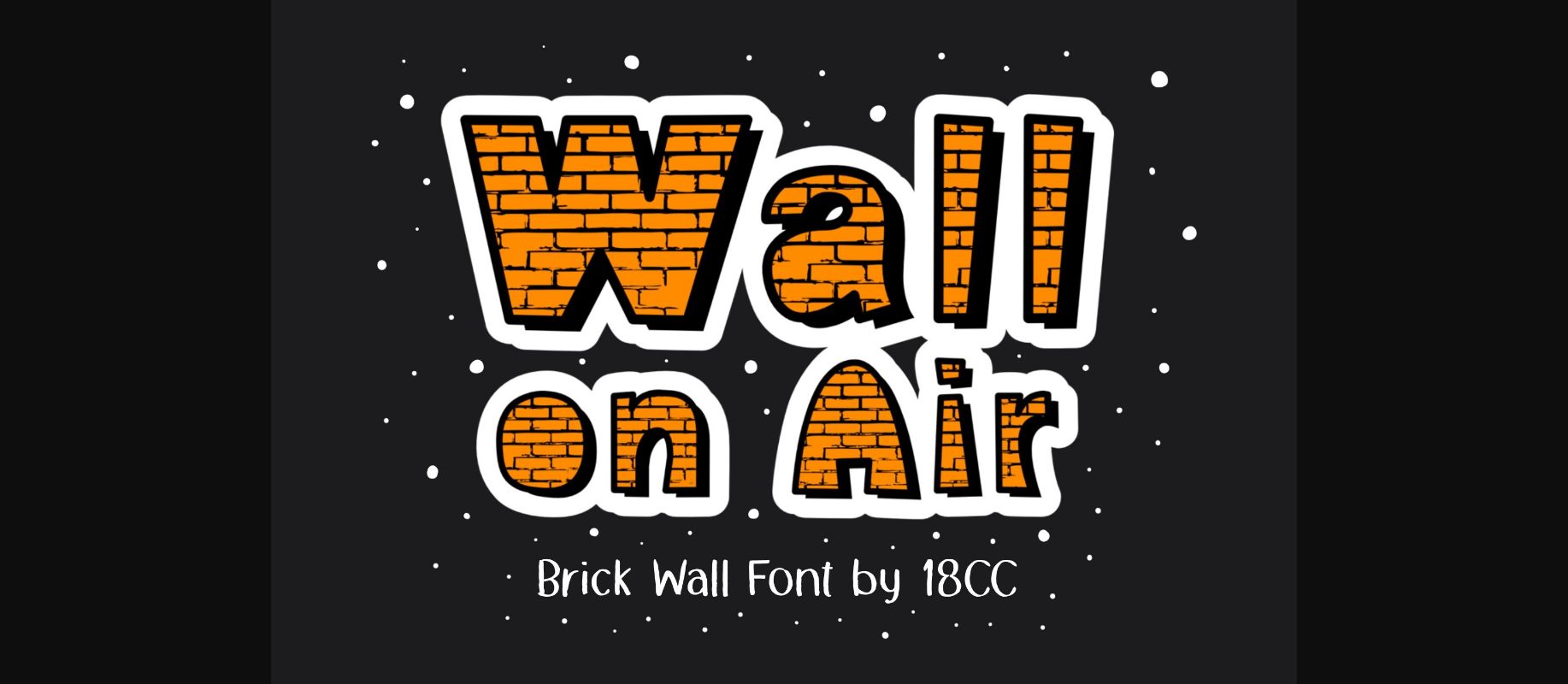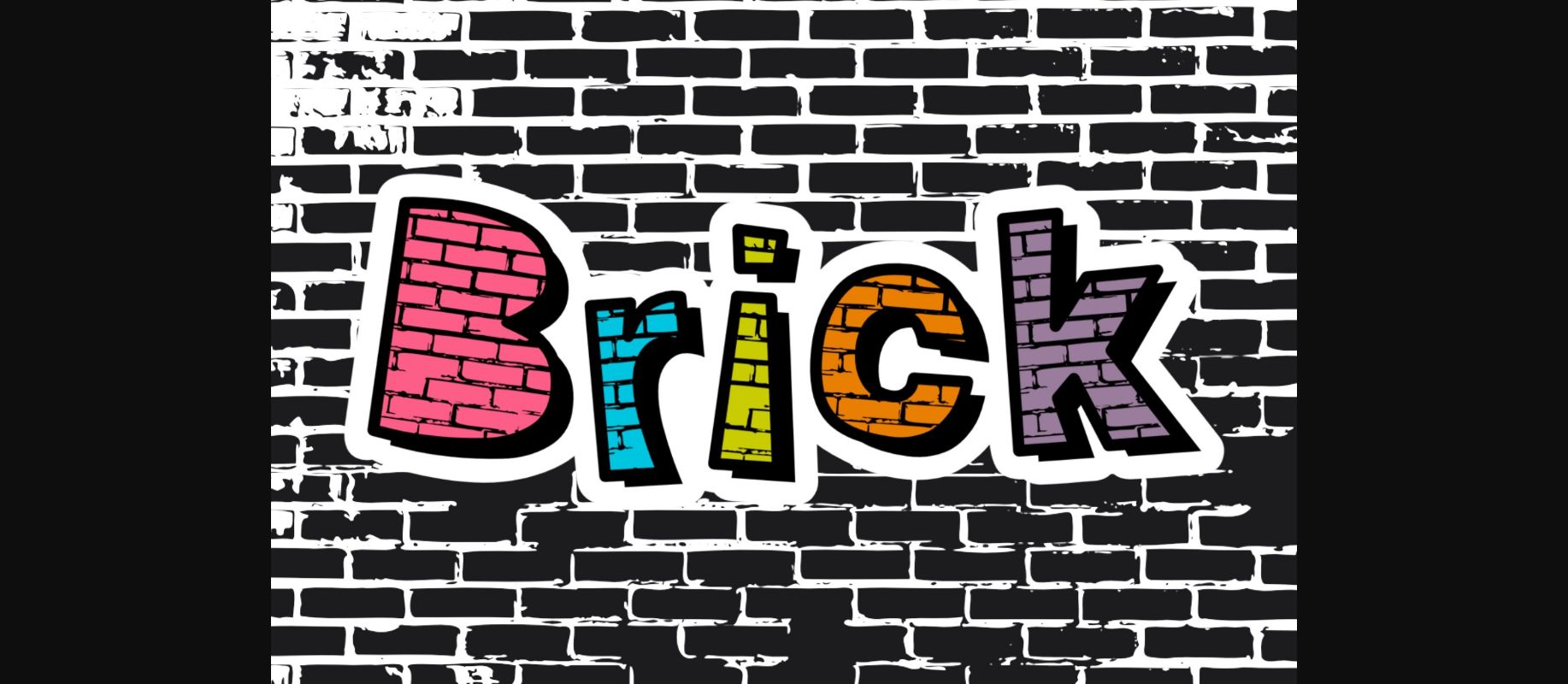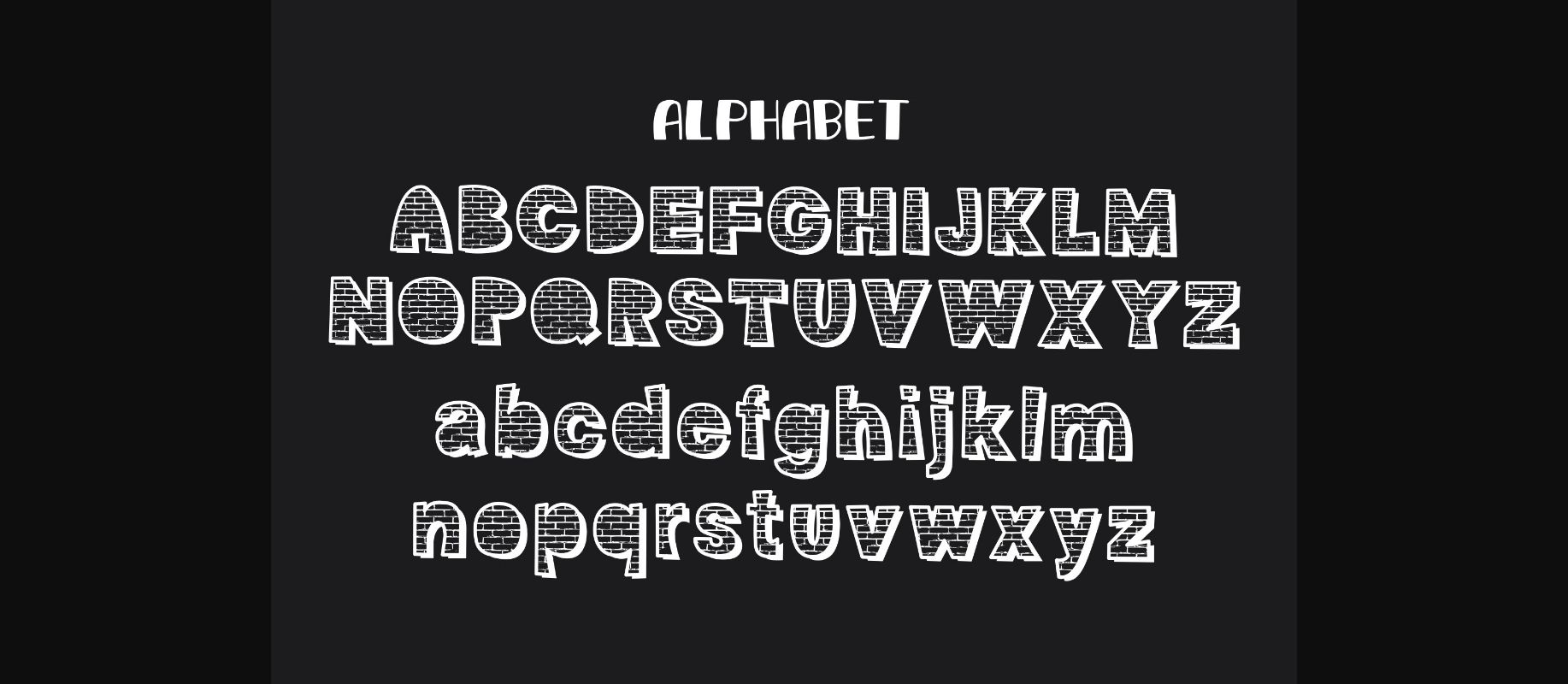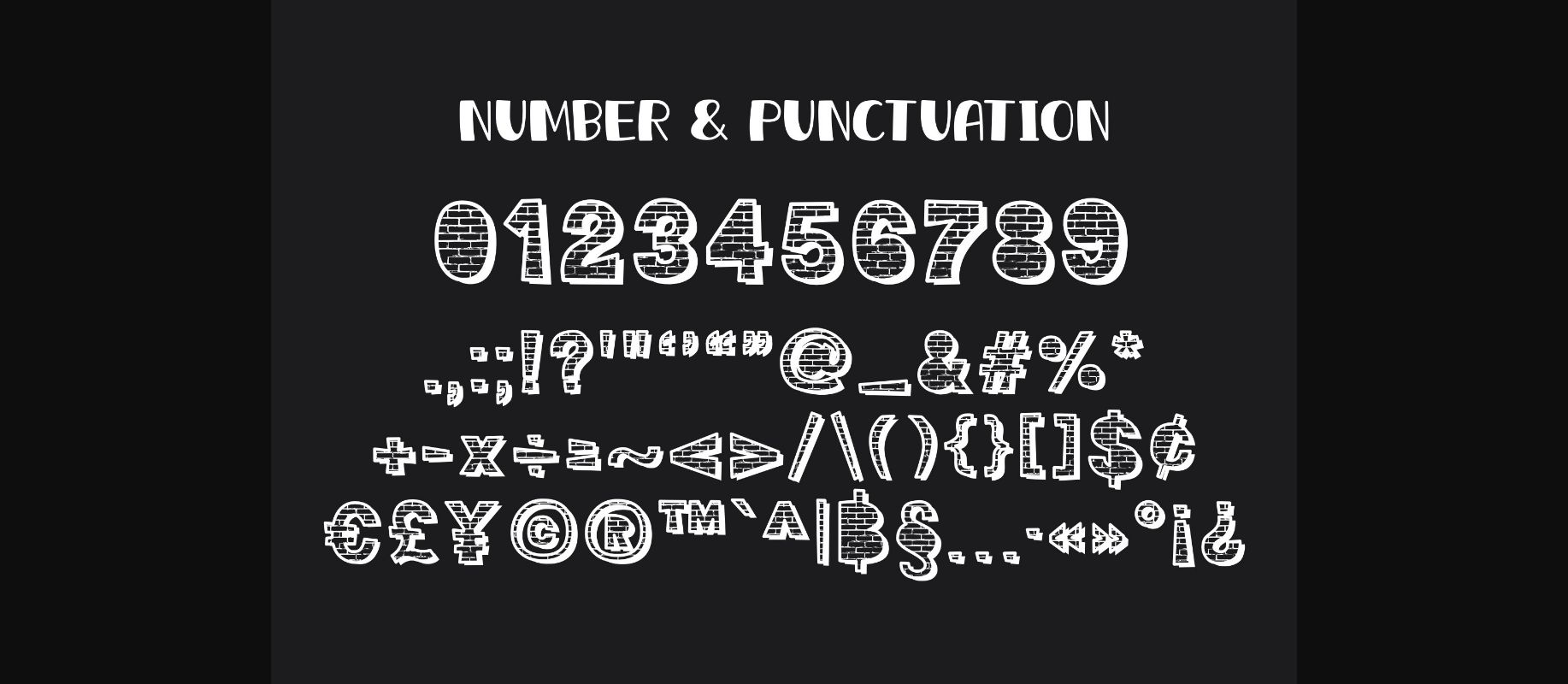
Wall on Air Font
About Wall on Air Font
Wall on Air is an interesting decorative font featuring cute brick-styled characters for an awesome look! Use this creative typeface for construction companies, marketing materials, social media posts, and others!